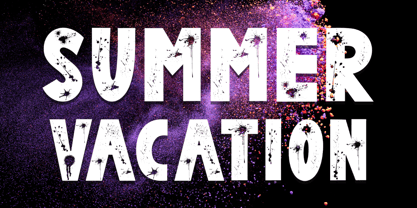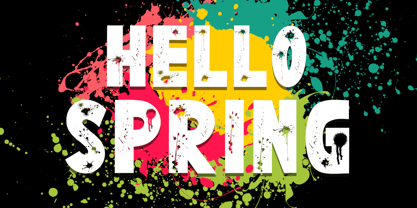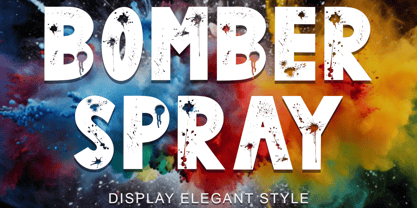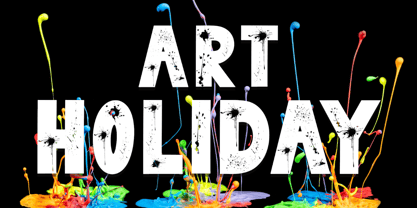
Bomber Spray
by Yoga Letter
The Bomber Spray Font Family was designed by Isroni Yoga Prasetya and published by Yoga Letter. Bomber Spray contains 1 styles.
"Bomber Spray" is a display font with a spray paint pattern. This font is equipped with uppercase, lowercase, numerals, punctuations and multilingual support. Very suitable for use for easter, spring, summer, halloween, posters, prints, branding, stickers, logos, banners and others.